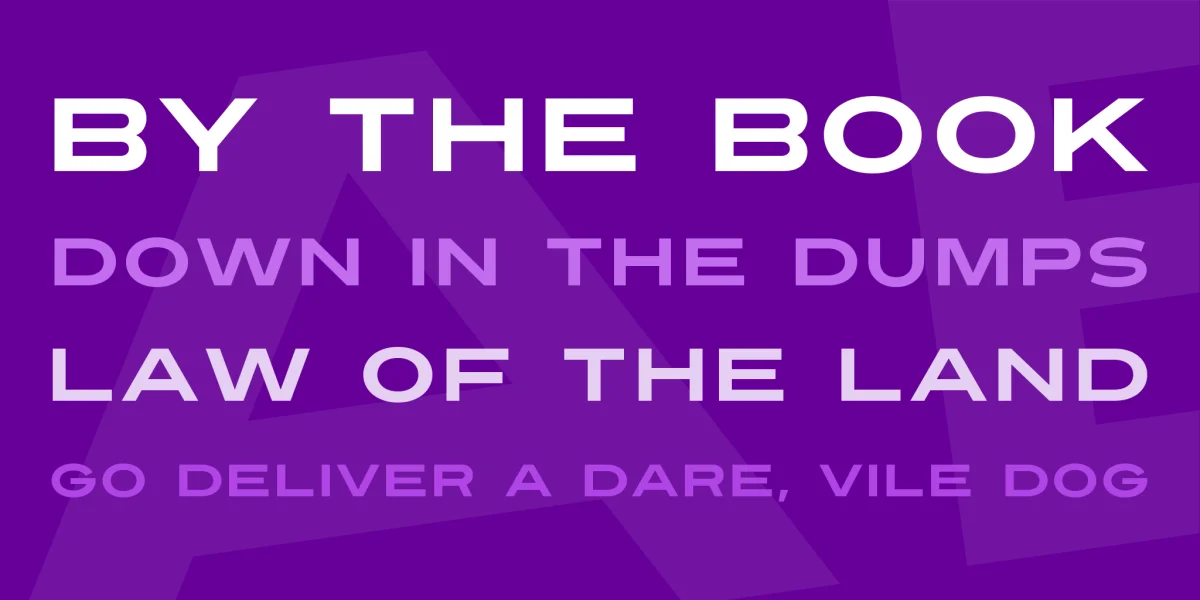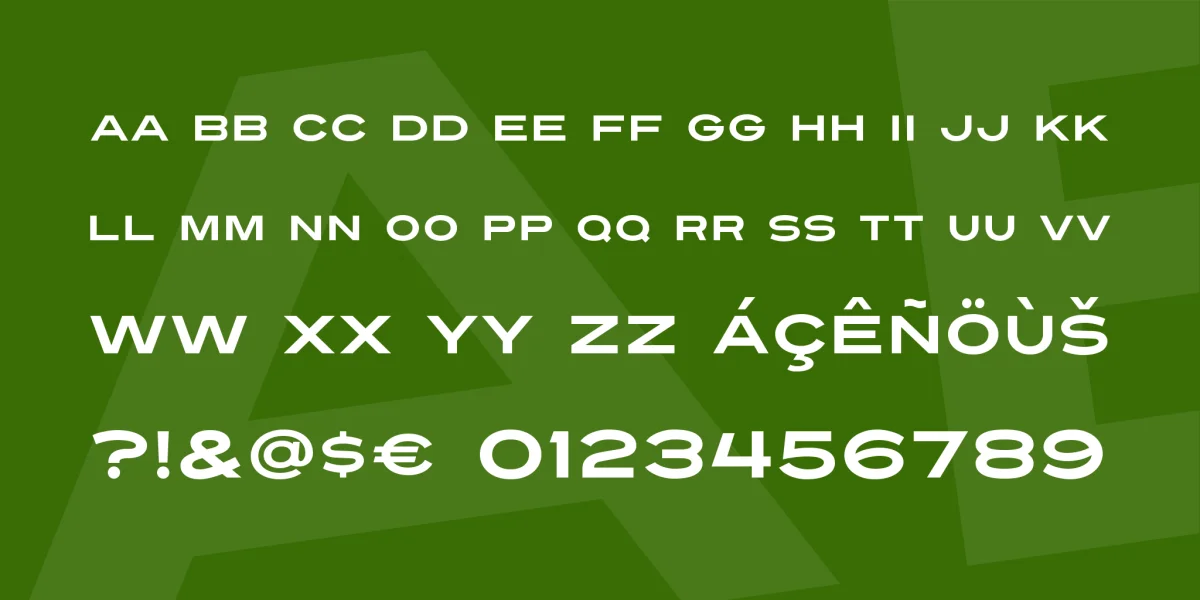
Take a trip down the interstate with Turnpike, an extra wide 1960s style modern gothic font inspired by classic dashboard lettering. Commercial licenses are available at MyFonts.